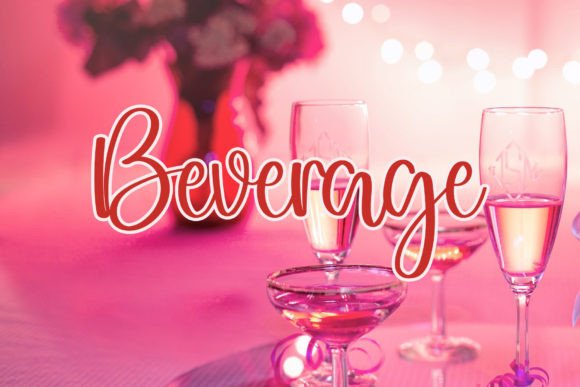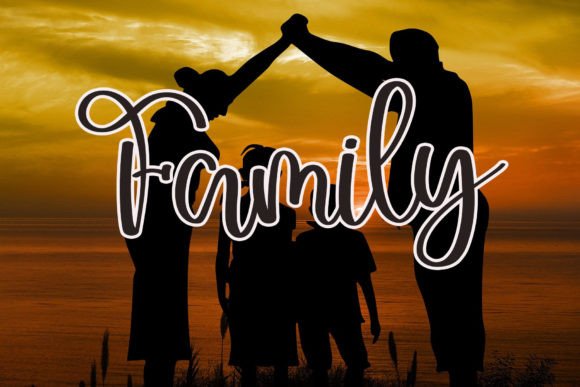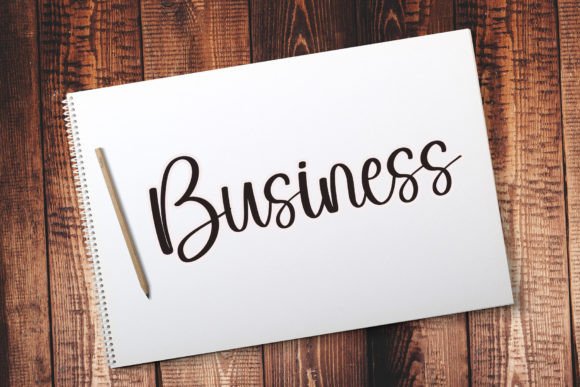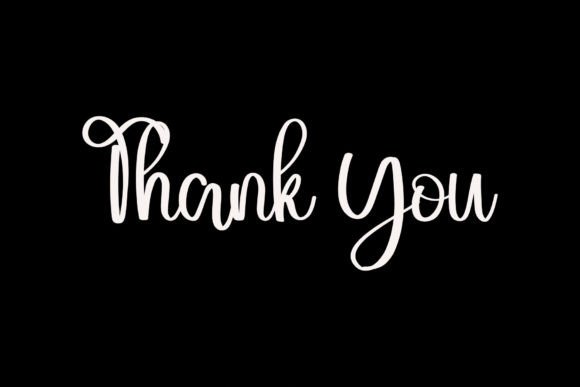
Discover the Elegance of Agreement Signature Font: Elevate Your Designs with Timeless Sophistication
In the world of typography, few fonts capture the essence of elegance and sophistication as beautifully as the Agreement Signature Font. This classic, handwritten script is not just a font; it’s an artistic statement that can transform your design projects into memorable masterpieces. Whether you’re a seasoned designer or a crafting enthusiast, Agreement Signature Font offers a unique blend of style and versatility that can elevate your creative work to new heights.
The Distinctive Charm of Agreement Signature Font
What sets Agreement Signature Font apart is its distinctive outline of characters, which lends an air of refinement and luxury to any design. This font is meticulously crafted to ensure that each letter, ligature, and glyph contributes to a cohesive and visually appealing aesthetic. The result is a font that not only captures attention but also leaves a lasting impression on viewers.
PUA Encoding: Unlocking Creative Potential
One of the key features that make Agreement Signature Font a favorite among designers is its PUA (Private Use Area) encoding. This technical aspect allows users to access a wide range of glyphs and ligatures easily, providing the flexibility needed to experiment with various design ideas. With PUA encoding, you can seamlessly integrate the font into your projects, whether you’re working on a logo, a wedding invitation, or a brand identity package.
Applications of Agreement Signature Font
The versatility of Agreement Signature Font makes it suitable for a myriad of design applications. Here are a few ideas to get you started:
- Wedding and Event Stationery: Add a touch of elegance to your wedding invitations, save-the-date cards, and event programs.
- Branding and Logo Design: Create a memorable brand identity with a logo that exudes sophistication and class.
- Packaging Design: Elevate your product packaging with a font that communicates luxury and quality.
- Digital and Print Media: Use the font in your digital marketing materials, such as brochures, flyers, and social media graphics, to maintain a consistent and premium look.
Why Designers and Crafters Love Agreement Signature Font
Designers and crafters alike are drawn to Agreement Signature Font for its unique combination of classic appeal and modern usability. Here are a few reasons why:
- Ease of Use: The PUA encoding makes it easy to access and use the font’s extensive features, even for those with limited technical knowledge.
- High Versatility: The font can be used across various design projects, from delicate stationery to bold branding materials.
- Timeless Elegance: The font’s classic design ensures that your work will remain stylish and relevant for years to come.
Agreement Signature Font is more than just a typeface; it’s a design companion that can help you create stunning, memorable pieces. Its elegant and classic appeal, combined with the practical benefits of PUA encoding, makes it an indispensable tool in the arsenal of any designer or crafter looking to leave a mark. So, fall in love with Agreement Signature Font and watch your projects reach their peaks of creativity and sophistication.
Whether you’re embarking on a new design journey or looking to refine your existing projects, Agreement Signature Font is sure to inspire and elevate your work. Experience the transformative power of this beautiful font and discover new possibilities in the world of design.